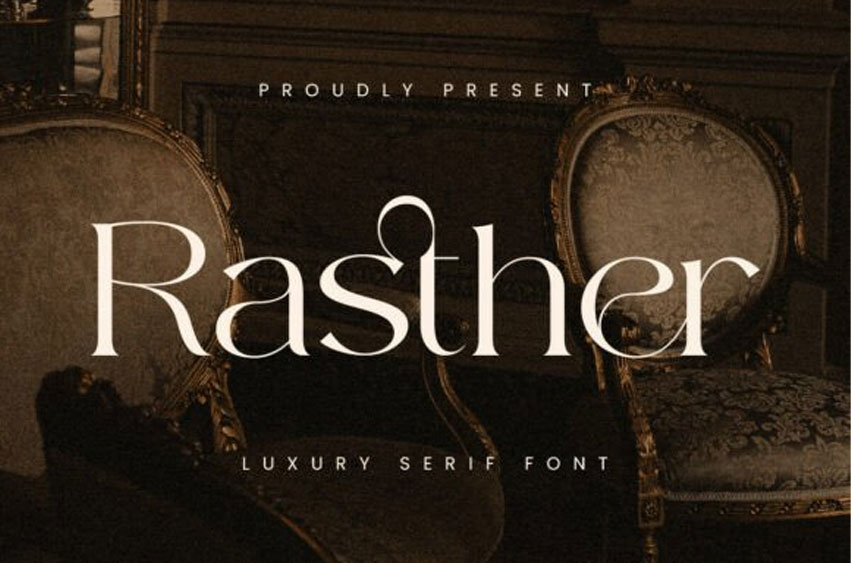
Rasther Font is a luxury serif font that combines graceful curves with refined geometry and sharp terminals.
Its letterforms feature high contrast between thick and thin strokes, creating a sophisticated rhythm ideal for upscale visual identities. The font’s unique signature element — elegant ball terminals and extended stems — adds distinctive charm without losing clarity.
Every glyph in the Rasther font is carefully spaced for balance and visual impact, making it an excellent choice for branding, fashion magazines, or editorial headlines. Its refined details and timeless character establish a sense of exclusivity, suited for logos, packaging, and art-focused design work.
Whether used for a headline, magazine title, or luxury logo, the Rasther Serif font exudes confidence and beauty in every detail.
Bring timeless elegance to your designs with the Rasther Serif font — a new standard of sophistication.